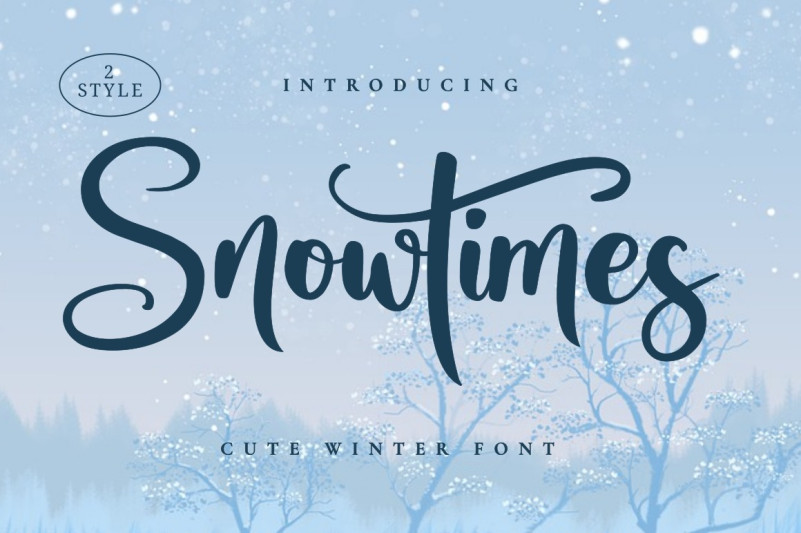
Snowtimes Font
Snowtimes Font is a delicate and elegant handwritten font. Its distinct and well-balanced letters make this font a masterpiece. Fall in love with its incredibly versatile style and use it to create spectacular designs!